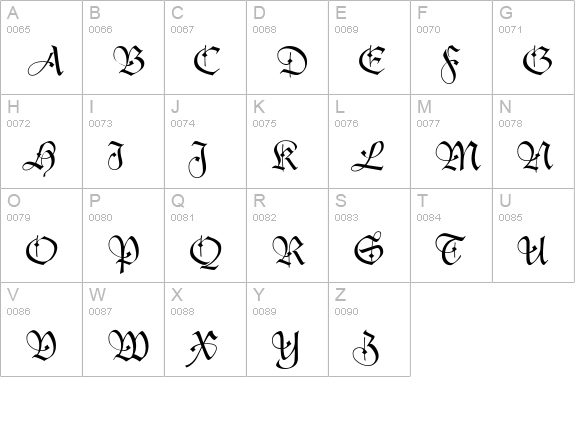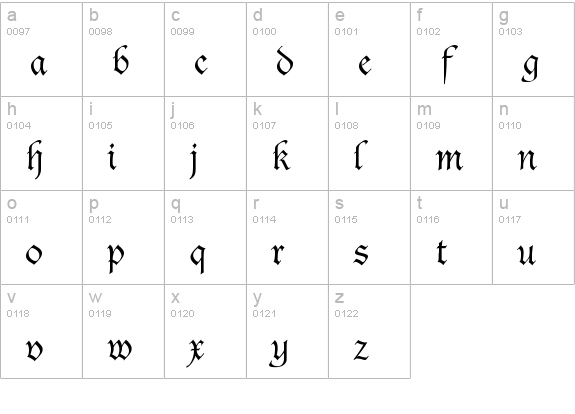
DucDeBerry Font Details
Introducing DucDeBerry, a captivating and elegant font that exudes sophistication and charm. This timeless typeface features intricate details and graceful curves, making it perfect for adding a touch of class to your projects. Whether you're designing invitations, branding materials, or signage, DucDeBerry will surely make a lasting impression. And the best part? DucDeBerry is completely free to download at FontsMarket.com. You can easily access this exquisite font and elevate your designs without any cost. Don't miss out on the opportunity to enhance your creativity with DucDeBerry – download it today and let your imagination run wild!